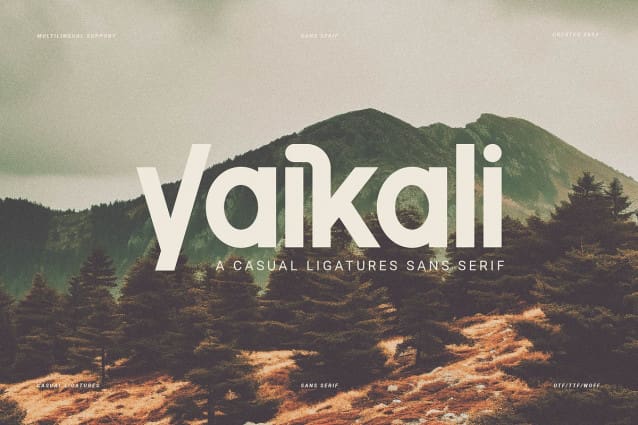
Yaikali Font
Yaikali Font – Casual Ligatures Sans Serif, from Denustudios, suitable for any projects such as: logos, branding projects, homeware designs, product packaging, mugs, quotes, posters, shopping bags, t-shirts, book covers, name card, invitation cards, greeting cards, label, photography, watermark, special events, and all your other lovely projects that need a Casual Ligatures Sans Serif taste.